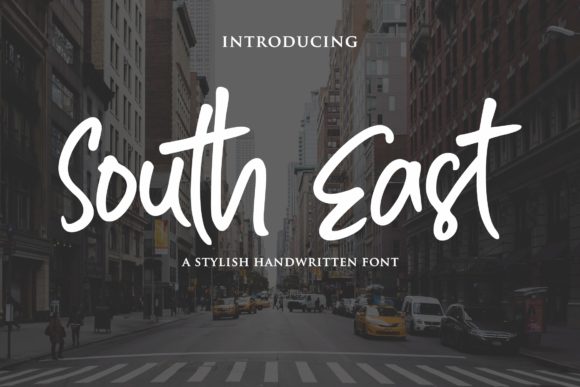
Step into a world of captivating typography with South East Font, a striking display font that radiates a cool and contemporary vibe. Experience the allure of its distinct charm and let your designs radiate with an air of sophistication.
Immerse yourself in the beauty of South East Font's meticulously crafted characters, each stroke exuding elegance and precision. Unleash your creativity and let this font elevate your projects to new heights of visual appeal. Whether you're a seasoned designer or just starting your typographic journey, South East Font is your gateway to stunning visuals that leave a lasting impression.
With South East Font, ordinary text transforms into captivating headlines, logos, posters, and social media graphics that demand attention. Its versatility knows no bounds, making it the perfect choice for a wide range of projects. Let your imagination soar and explore the endless possibilities that await you with this remarkable font.
South East Font's modern aesthetic and cool feel infuse your designs with a touch of sophistication. Its clean lines and sharp edges create a striking visual impact that resonates with contemporary design sensibilities. Join the ranks of creative professionals who have embraced South East Font to elevate their projects and captivate audiences.
Don't let your designs settle for ordinary fonts. Embark on a journey of typographic excellence with South East Font. Experience the joy of crafting visually stunning designs that leave a lasting impact. Embrace the allure of South East Font today and unlock the true potential of your creative vision.